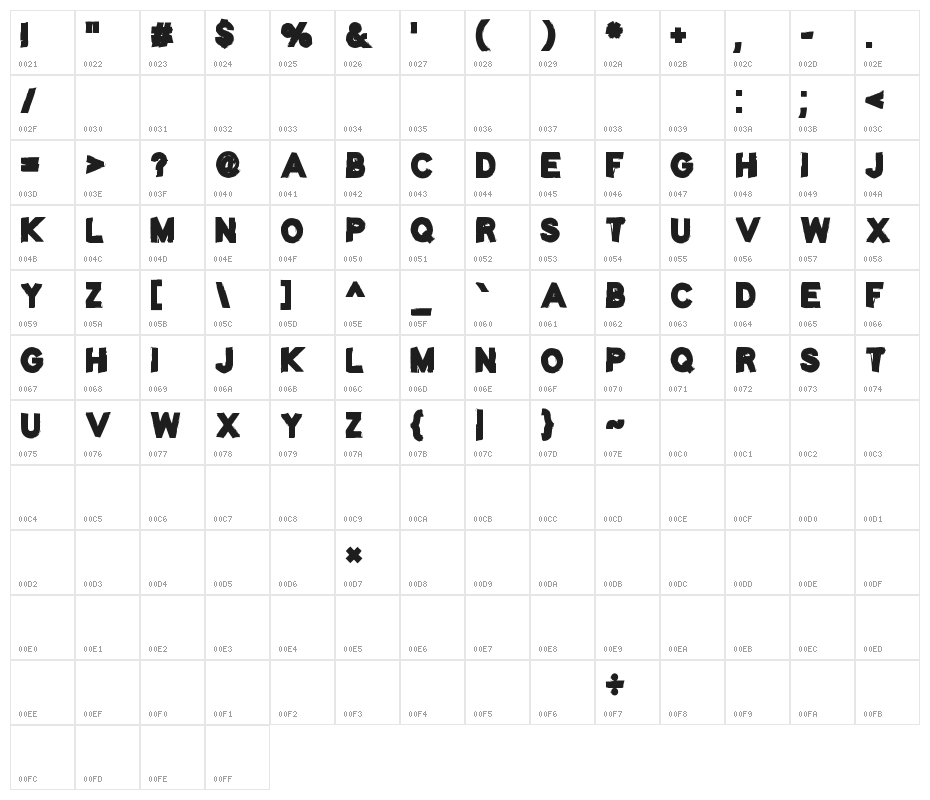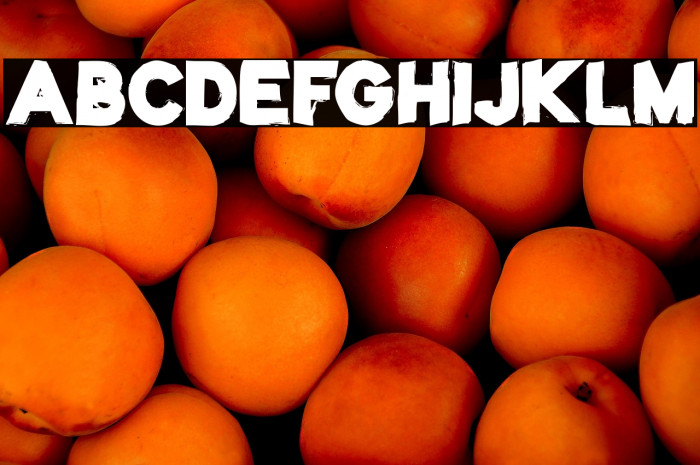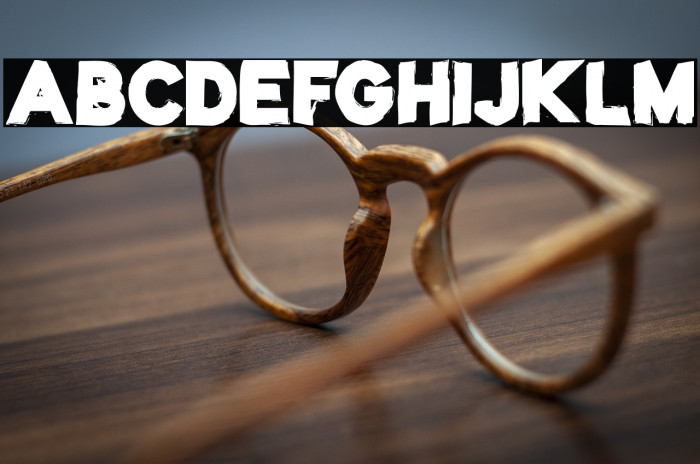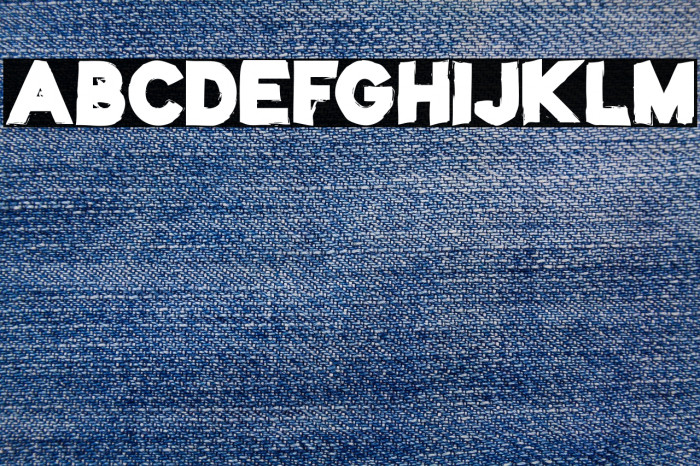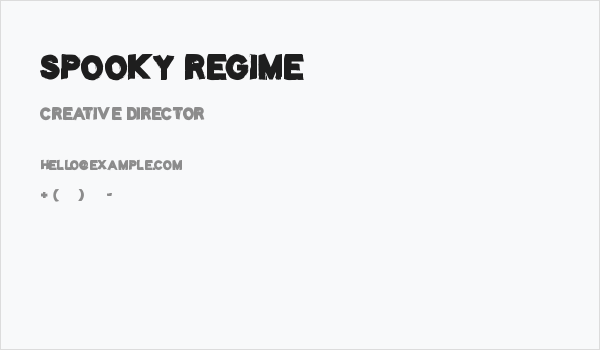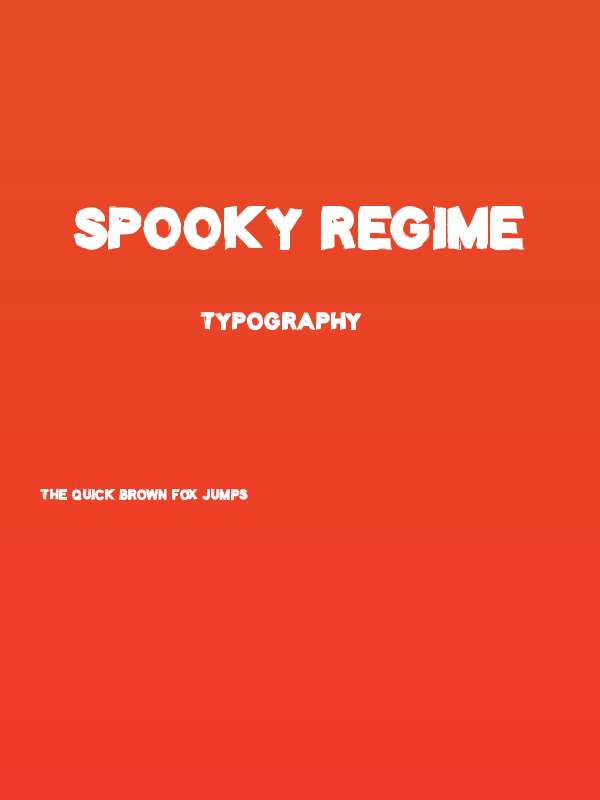
Spooky Regime Font
Spooky Regime Description
This font exhibits a bold and rugged appearance, characterized by its jagged edges and uneven strokes, which give it a distressed and spooky aesthetic. The uppercase and lowercase letters maintain a consistent boldness, with a slightly irregular baseline that enhances its eerie charm. The numbers and special characters follow the same rough style, making them ideal for creating a cohesive design. The font's overall look is reminiscent of horror themes, making it perfect for Halloween or other spooky-themed projects. Its unique style captures attention and adds a dramatic flair to any design.
Proposed ProjectsIdeal for Halloween-themed designs, horror movie posters, haunted house flyers, and spooky event invitations.